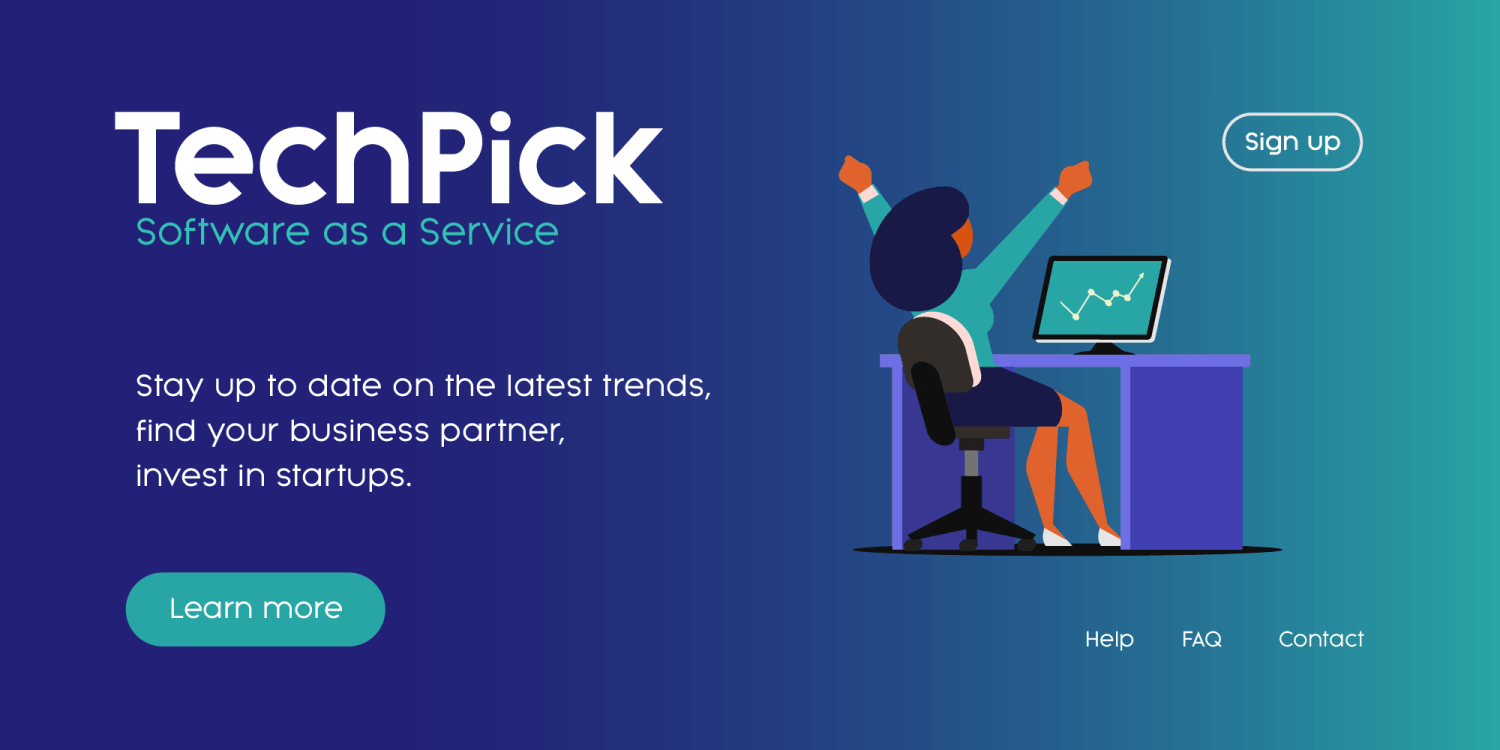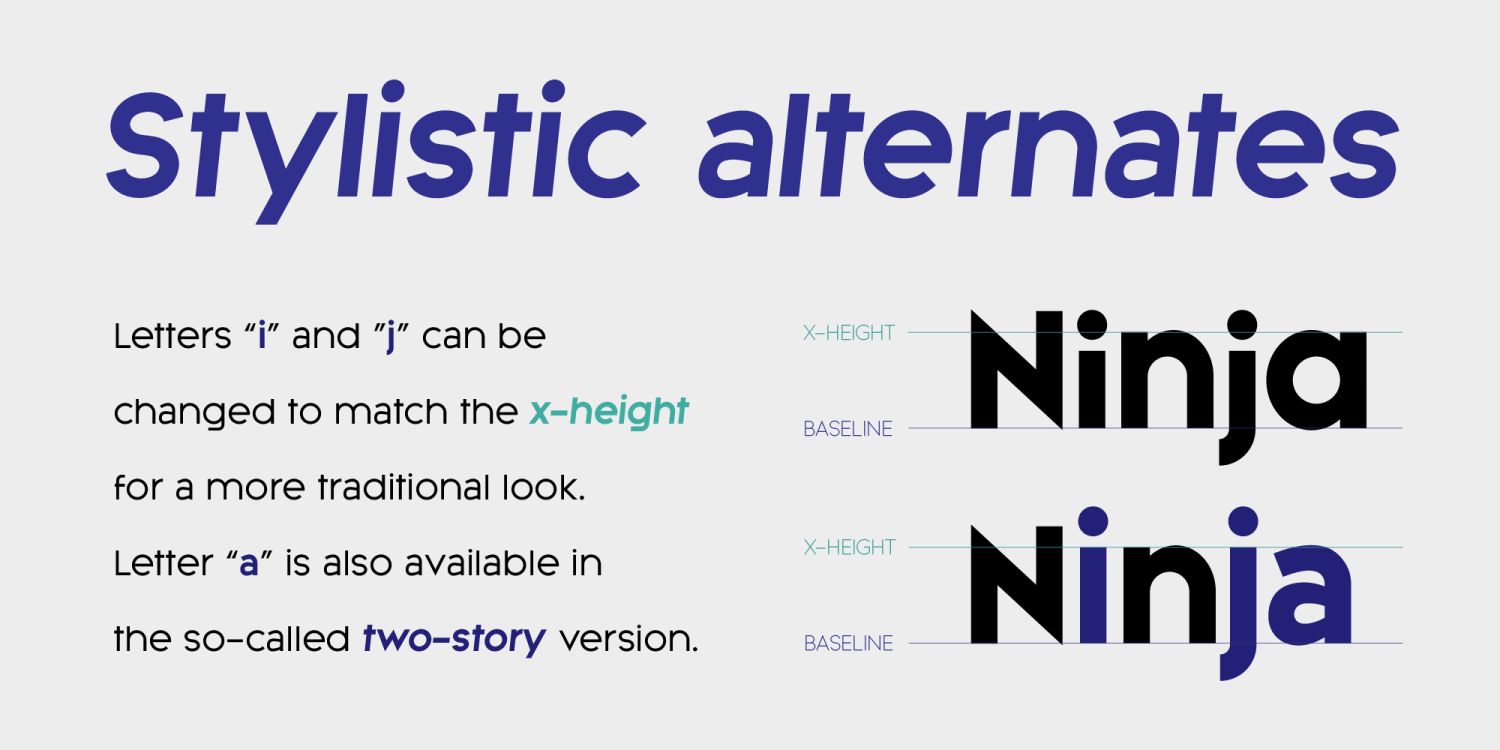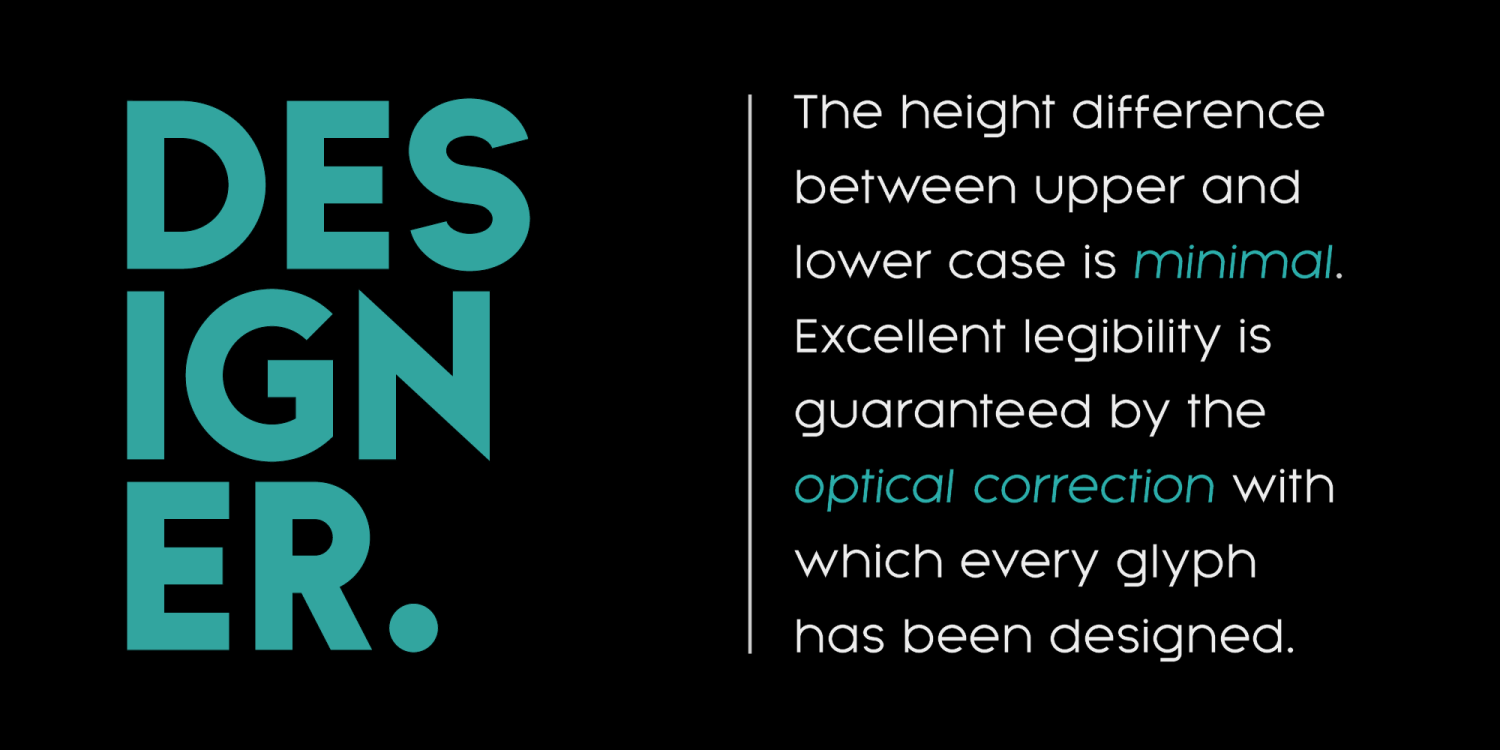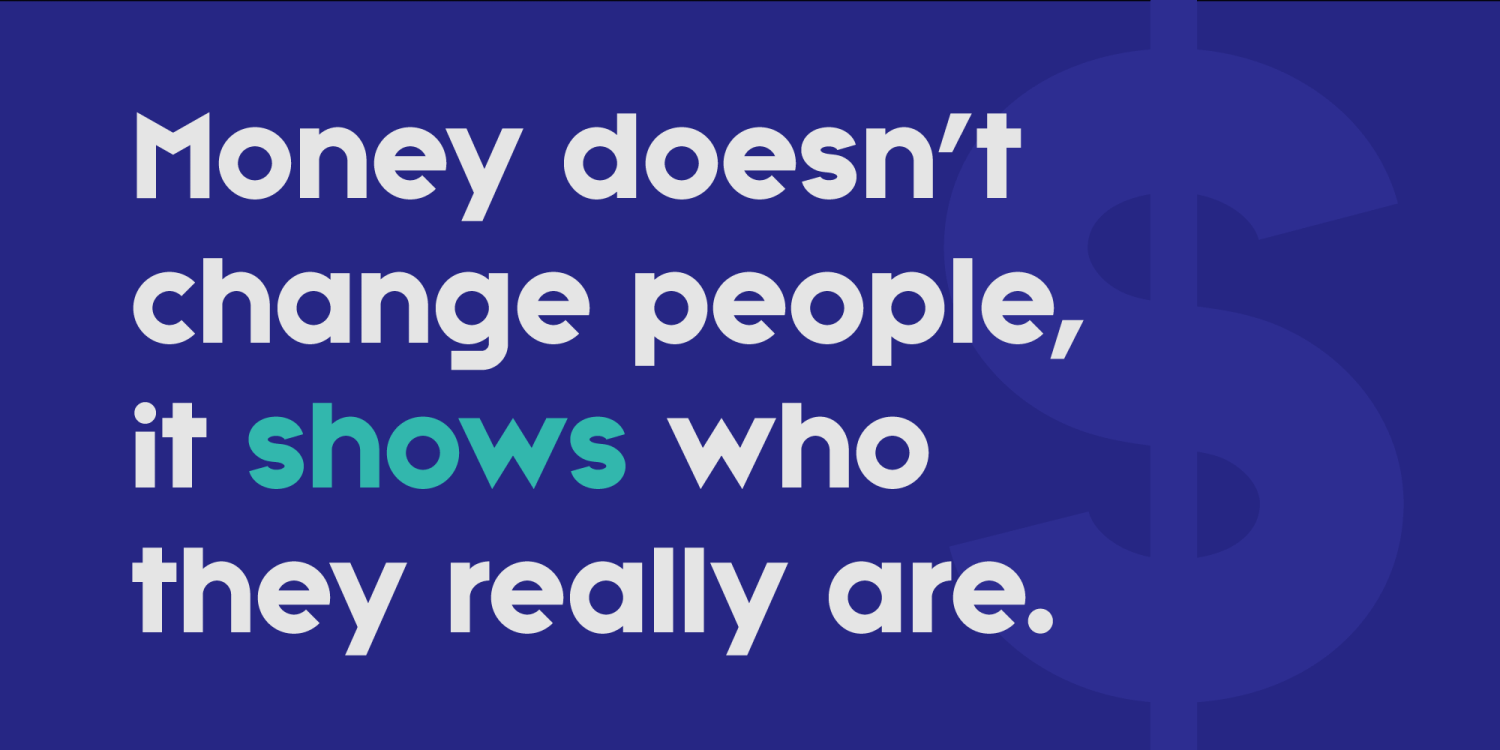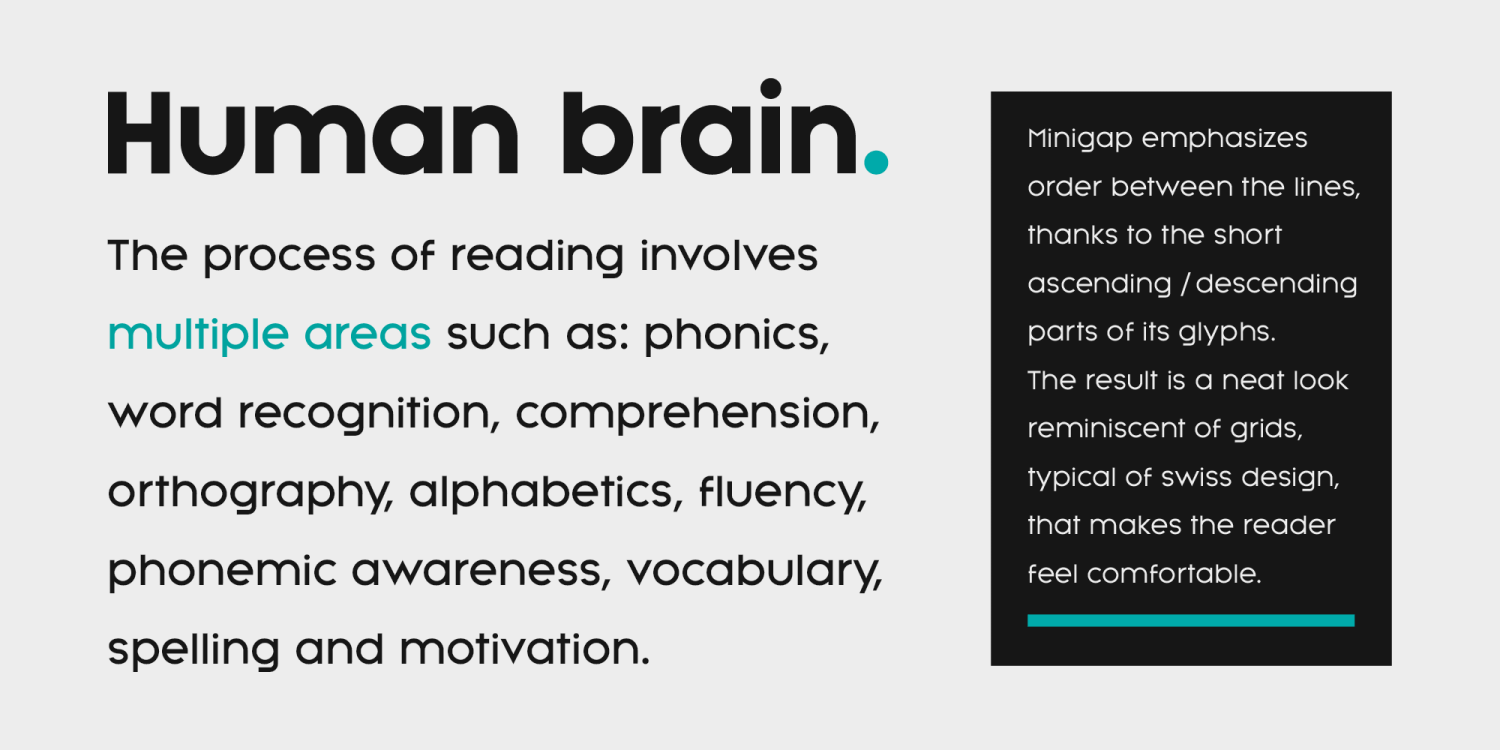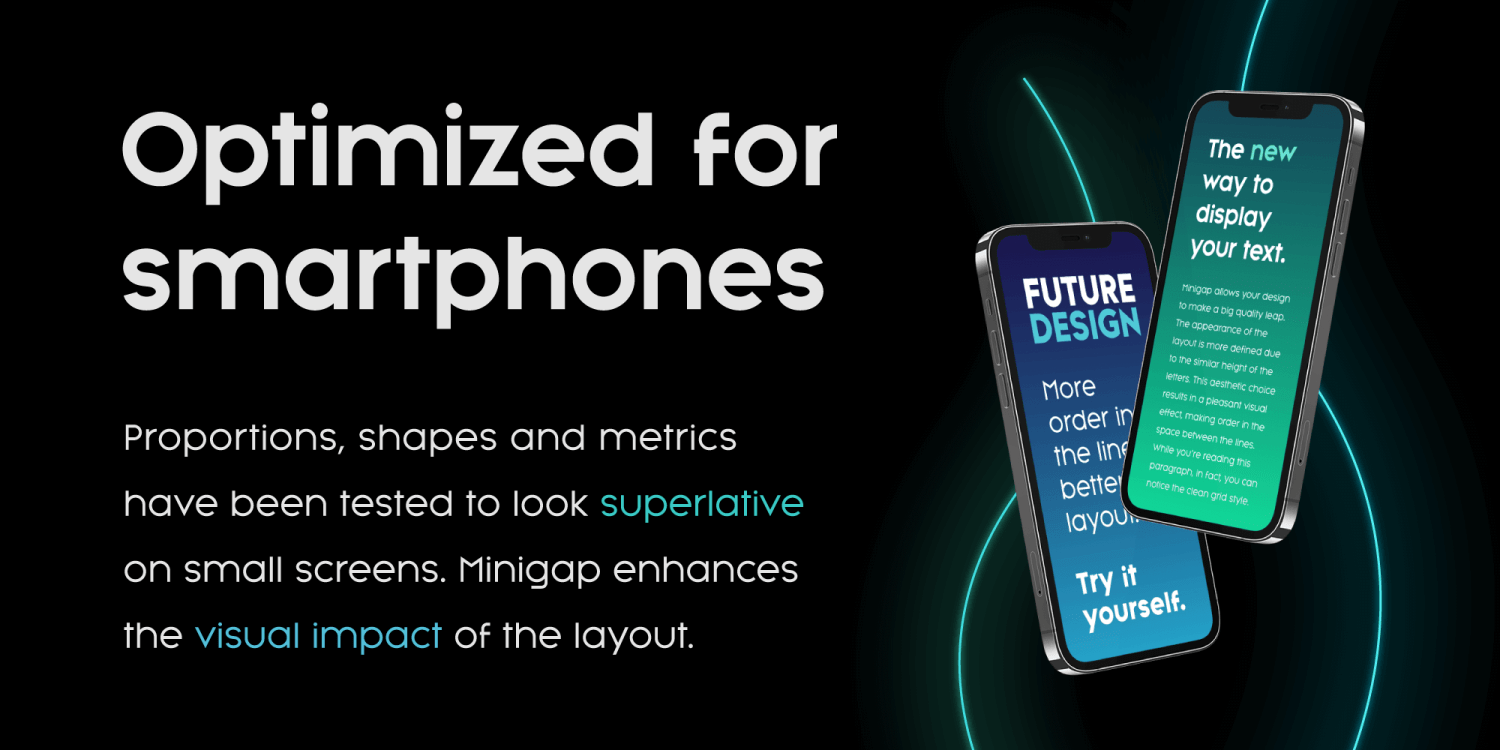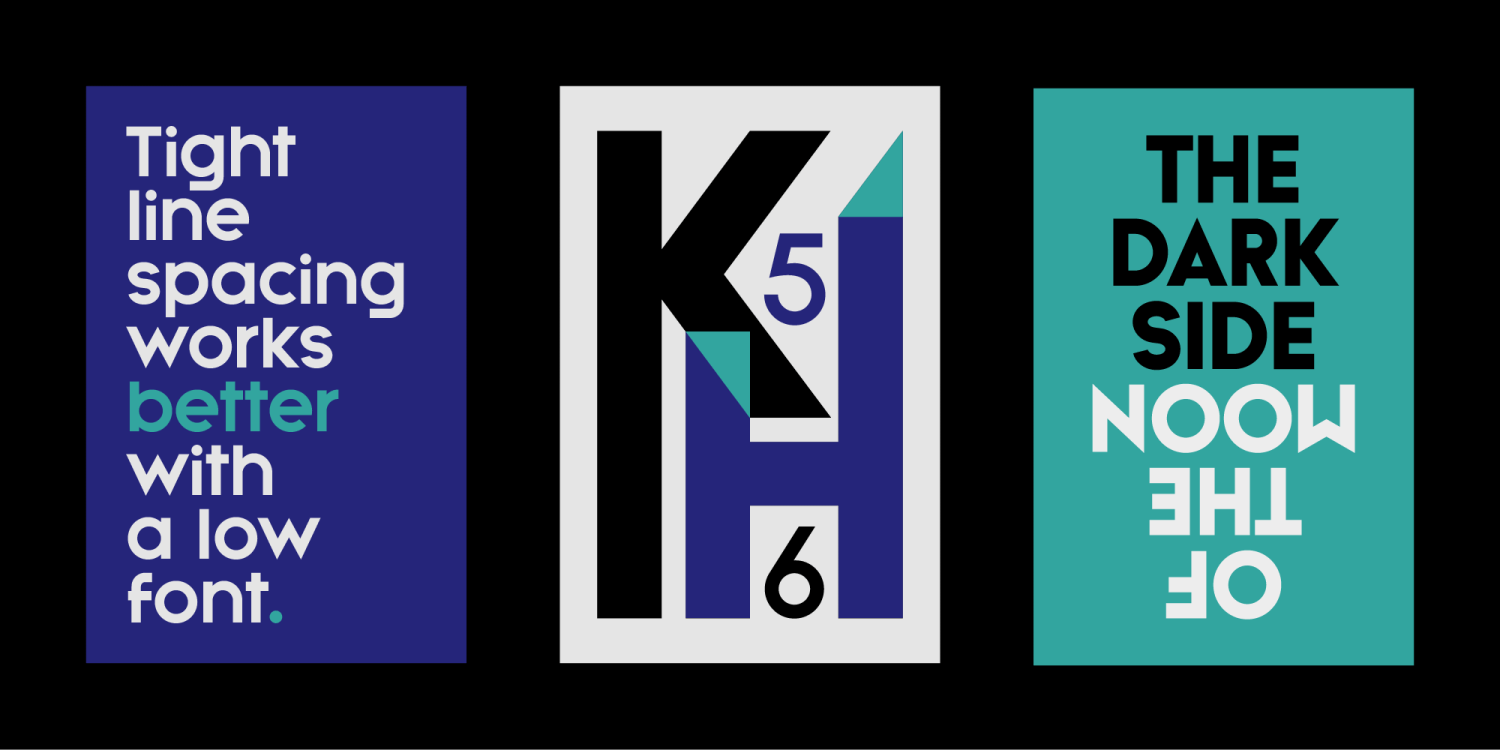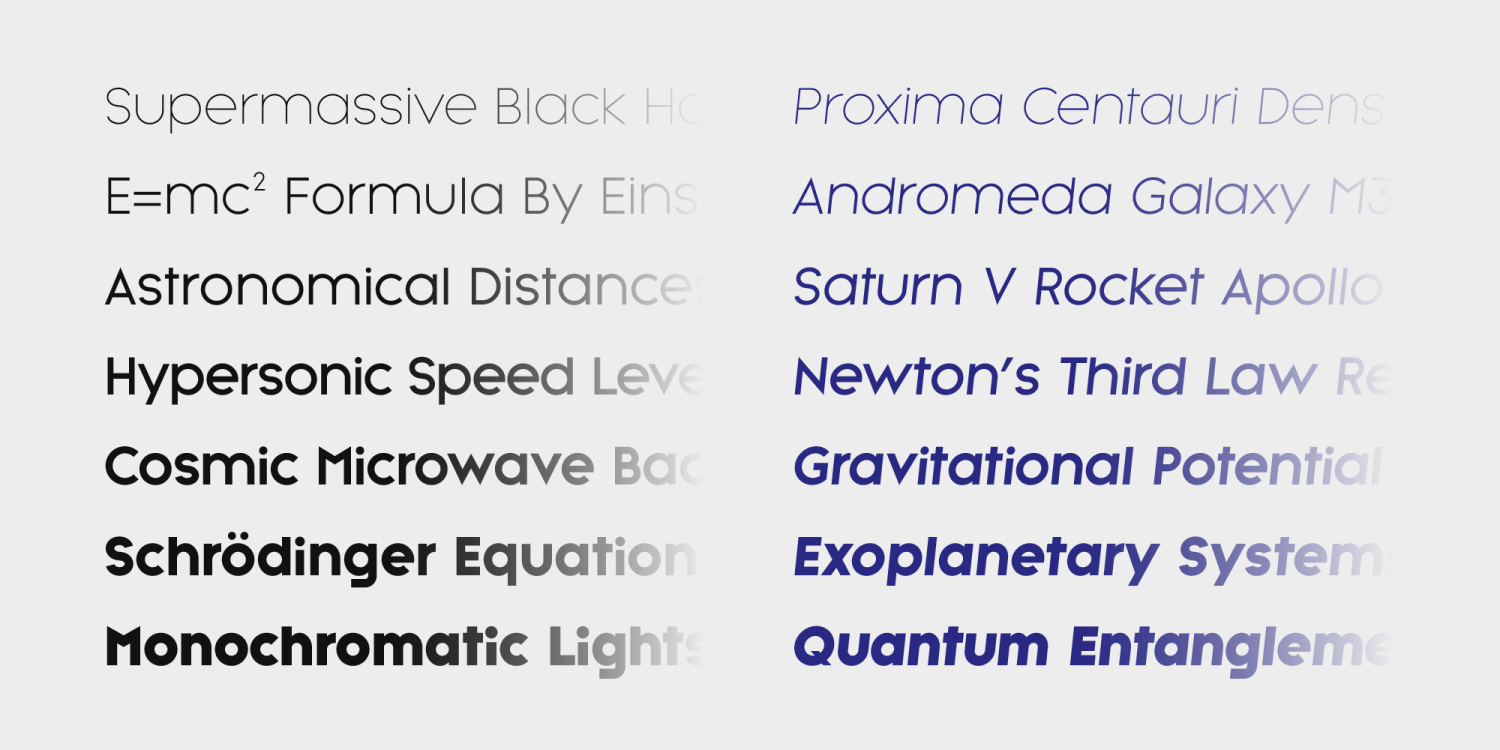
Minigap
About Minigap
Minigap is a geometric sans serif family that has a minimal height difference between upper and lower case. In other words for those who are into typography, it has a very high x-height. The choice was made to finally have a typeface that could appear…